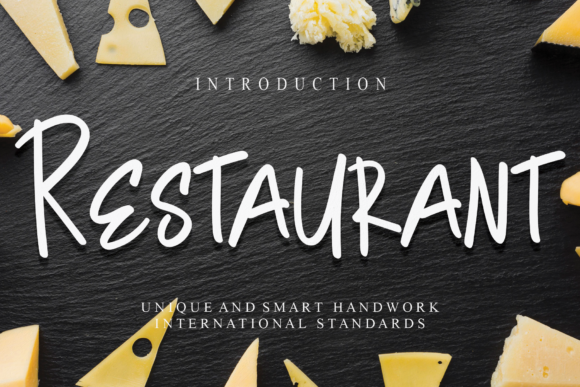
Journey into a world where words dance in harmony with flavors, aromas, and ambiance – introducing Restaurant Font, the culinary-inspired script font family that will tantalize your taste buds and set your imagination ablaze.
Crafted with the finesse of a master chef, Restaurant Font is a symphony of elegant curves, graceful lines, and playful flourishes. Each letter is a culinary masterpiece, a delectable morsel that invites you to indulge in a feast of visual delight.
Picture a menu adorned with Restaurant Font, its characters swirling like wisps of smoke from a sizzling skillet. The menu itself becomes an appetizer for the eyes, teasing you with promises of culinary adventures yet to come.
Envision a travel brochure showcasing Restaurant Font, its letters transforming into enchanting landscapes, inviting you to embark on a gastronomic journey across the globe. From bustling food markets to hidden trattorias, Restaurant Font captures the essence of culinary exploration.
Step into a world where Restaurant Font graces wedding invitations, its letters intertwining like vines around a trellis, creating an atmosphere of romance and celebration. Each invitation becomes a personal invitation to a feast of love and joy.
Restaurant Font is more than just a font; it's a culinary experience, a journey of flavors, cultures, and emotions. Let your creativity simmer as you explore the endless possibilities of this remarkable font family.
So, dear culinary connoisseur, gastronome, and lover of life's delectable pleasures, surrender to the allure of Restaurant Font. Let your imagination run wild as you create visual masterpieces that will leave your audience hungry for more. Bon appétit!